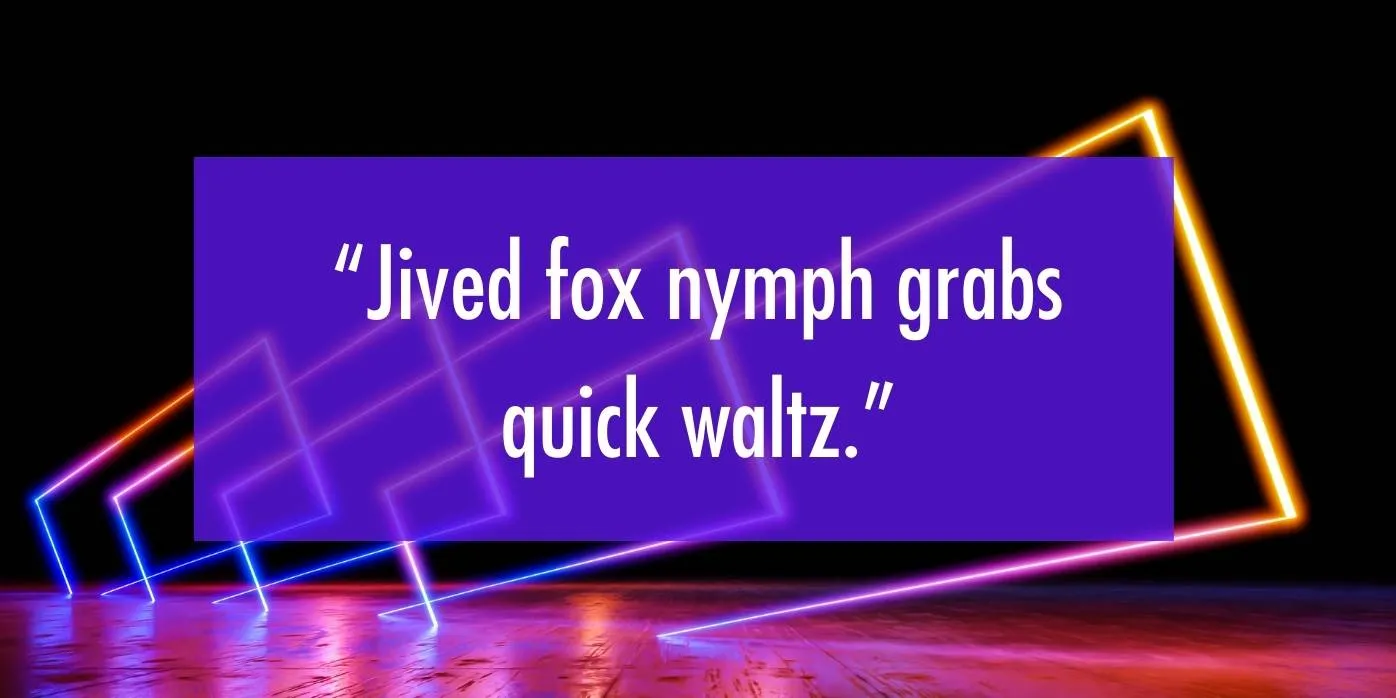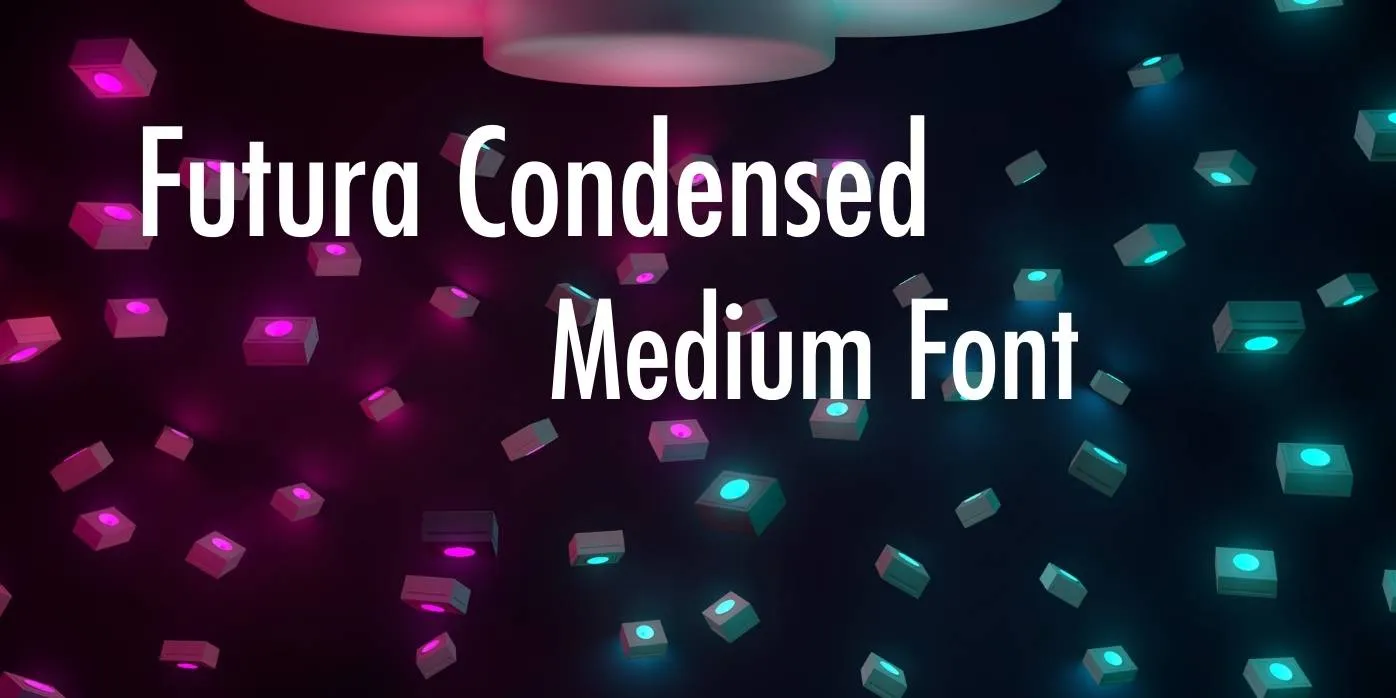
Futura Condensed Medium Font
Futura Condensed Medium Font was developed and published by very famous designer Paul Renner. This cute typeface belongs to the Sans-serif family. It is a geometric typeface that features simple shapes. The font was created in 1927 and it is still widely used today.
This typeface is best for Canva. This cozy Font is perfect for headlines, titles, and short paragraphs of text. If you are looking for a sans-serif font, it is best for your designs. This modern typeface comes in unique 226 Glyphs and supports a wide range of languages.
This Font is perfect for print design projects. This typeface is so simple, it is best used for large text. Its copy and paste function is best for various tasks. futura oblique font is similar to this stunning font.